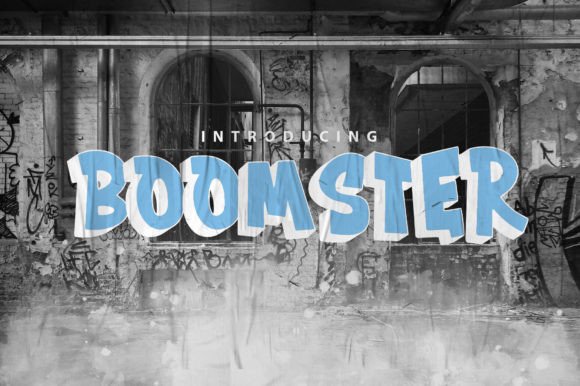
Introducing Boomster Font: Elevate Your Designs with a Spectacular Display Font
In the world of typography, fonts play a crucial role in making or breaking a design. A well-chosen font can elevate a project from ordinary to extraordinary, while a poorly chosen one can have the opposite effect. If you’re looking for a font that can add a touch of coolness and sophistication to your designs, look no further than Boomster Font. In this article, we’ll explore the features and benefits of Boomster Font, and how it can be used to take your designs to the next level.
What is Boomster Font?
Boomster Font is a spectacular display font with a cool graffiti style. Its unique and edgy design makes it perfect for a wide range of design projects, from branding and headings to designs, invitations, signatures, logotype, streetwear, wall art illustration, apparel, labels, and much more. With its bold and eye-catching appearance, Boomster Font is sure to grab attention and leave a lasting impression.
Key Features of Boomster Font
- Cool Graffiti Style: Boomster Font boasts a unique graffiti style that adds a touch of coolness to any design.
- Spectacular Display: With its bold and eye-catching appearance, Boomster Font is perfect for display purposes, such as headings, titles, and signage.
- Versatile: Boomster Font can be used for a wide range of design projects, from branding and advertising to streetwear and wall art.
- Easily Readable: Despite its bold and edgy design, Boomster Font is easily readable, making it perfect for use in a variety of contexts.
How to Use Boomster Font
Boomster Font is incredibly versatile and can be used in a variety of design projects. Here are just a few examples of how you can use Boomster Font:
Design Ideas Using Boomster Font
- Branding: Use Boomster Font to create bold and eye-catching logos, business cards, and letterheads.
- Headings and Titles: Add a touch of coolness to your headings and titles with Boomster Font.
- Streetwear: Use Boomster Font to create bold and eye-catching designs for streetwear, such as t-shirts, hoodies, and hats.
- Wall Art Illustration: Create stunning wall art illustrations using Boomster Font.
- Invitations and Signatures: Add a touch of sophistication to your invitations and signatures with Boomster Font.
Benefits of Using Boomster Font
There are many benefits to using Boomster Font in your designs. Here are just a few:
Benefits of Boomster Font
- Unique and Eye-Catching: Boomster Font is a unique and eye-catching font that will grab attention and leave a lasting impression.
- Versatile: Boomster Font can be used for a wide range of design projects, making it a great addition to any designer’s toolkit.
- Easily Readable: Despite its bold and edgy design, Boomster Font is easily readable, making it perfect for use in a variety of contexts.
- Time-Saving: With Boomster Font, you can create stunning designs in no time, saving you time and effort.
Tips and Tricks for Using Boomster Font
Here are a few tips and tricks for using Boomster Font:
Tips and Tricks for Boomster Font
- Experiment with Colors: Boomster Font looks great in a variety of colors, so don’t be afraid to experiment and find the perfect color for your design.
- Use it Boldly: Boomster Font is a bold and eye-catching font, so don’t be afraid to use it boldly in your designs.
- Pair it with Other Fonts: Boomster Font pairs well with other fonts, so feel free to experiment with different font combinations.
In conclusion, Boomster Font is a spectacular display font with a cool graffiti style that is sure to elevate a wide range of design projects to the highest level. With its unique and eye-catching appearance, versatility, and ease of readability, Boomster Font is a great addition to any designer’s toolkit. Whether you’re looking to create bold and eye-catching logos, headings, or streetwear designs, Boomster Font is the perfect choice.